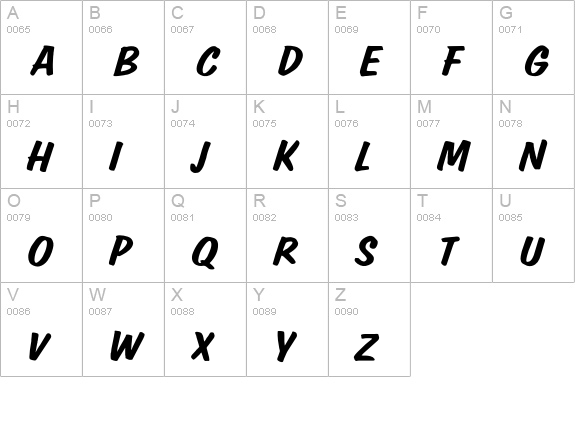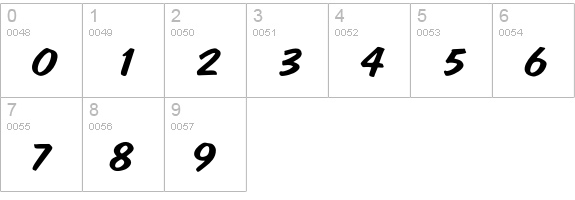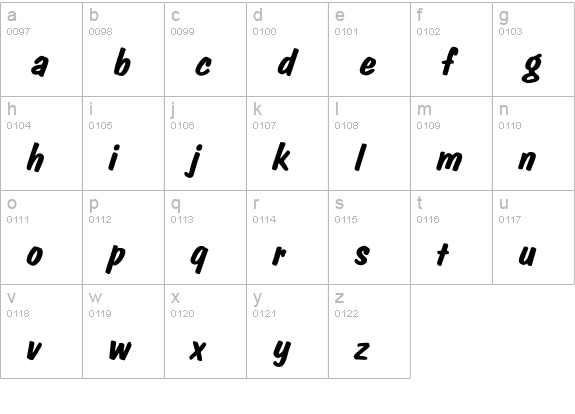
OPTICarolina-Brush Font Details
Introducing OPTICarolina-Brush font, a stunning and versatile typeface that exudes elegance and creativity. With its unique brush strokes and modern appeal, this font is perfect for a wide range of design projects, from branding to packaging to social media graphics. What sets OPTICarolina-Brush font apart is its seamless blend of sophistication and playfulness, making it a top choice for designers looking to make a statement. Whether you're working on a sleek logo design or crafting eye-catching headlines, this font is sure to leave a lasting impression. Best of all, OPTICarolina-Brush font is available for free download at FontsMarket.com, allowing you to access this incredible font without breaking the bank. Don't miss out on this opportunity to elevate your designs with the beauty and versatility of OPTICarolina-Brush font. Download it today and let your creativity shine!